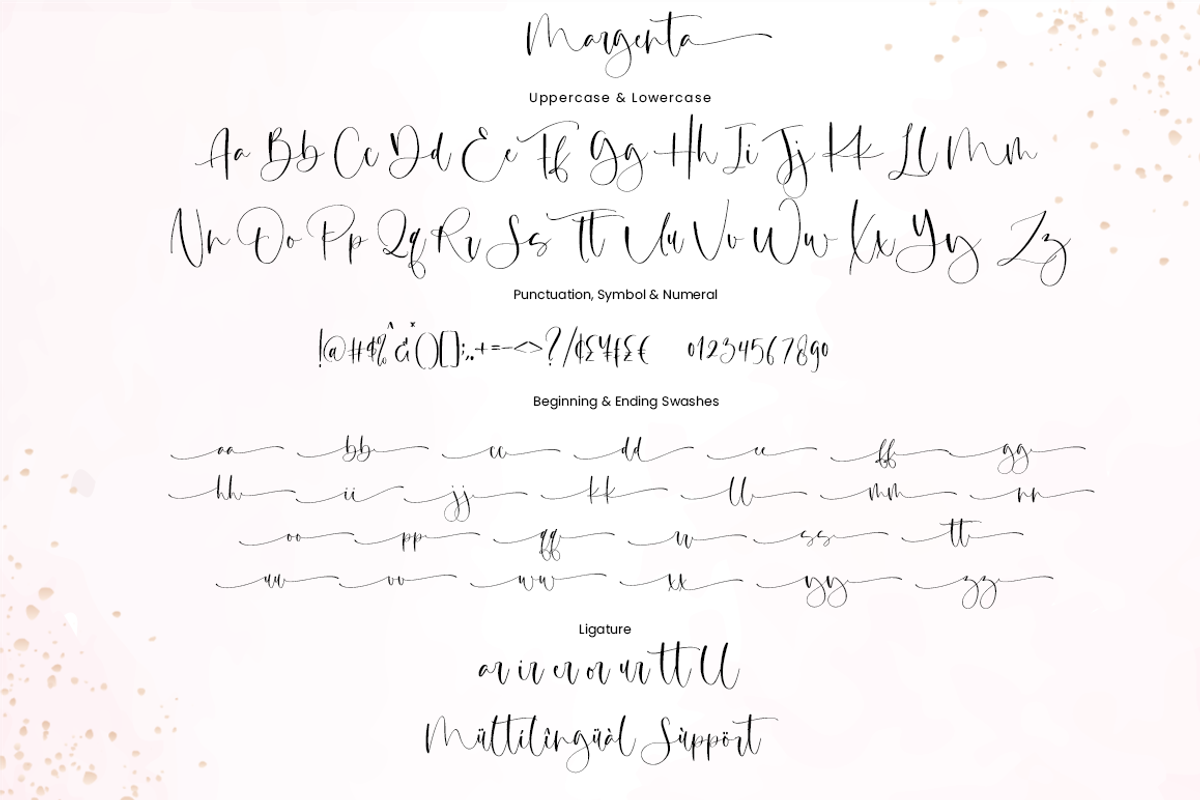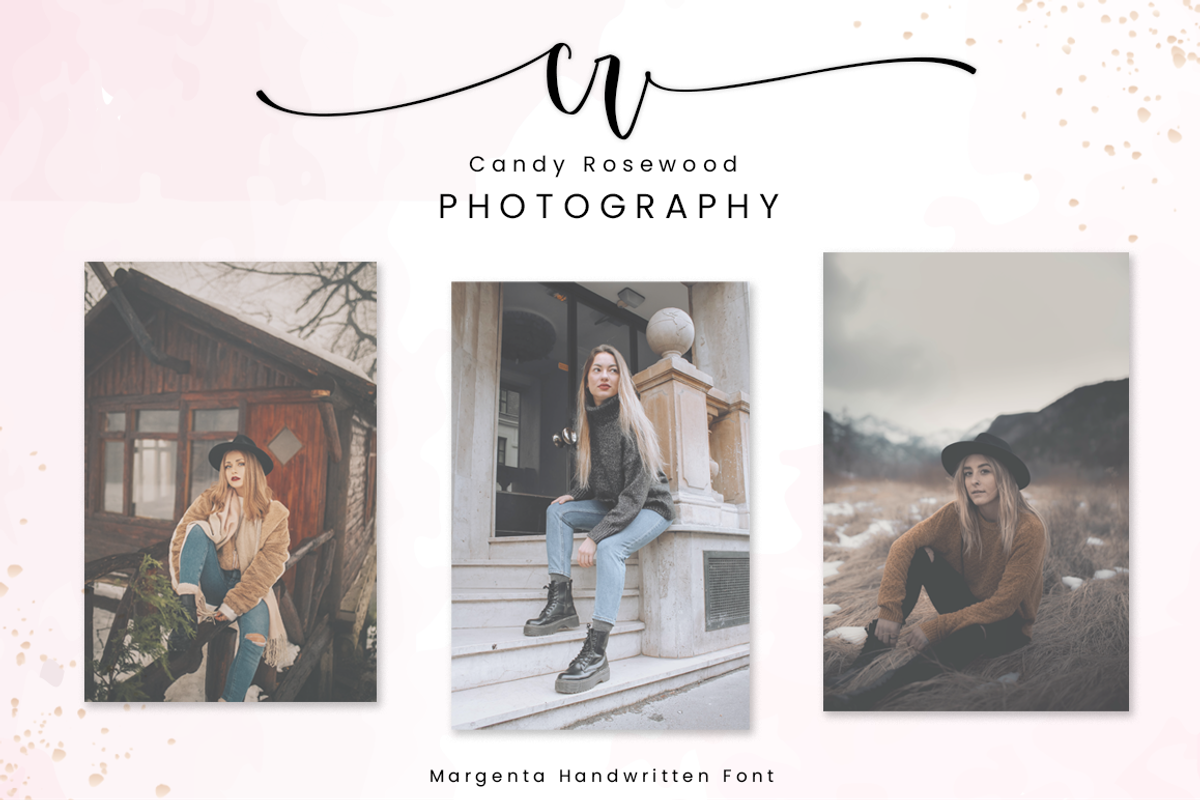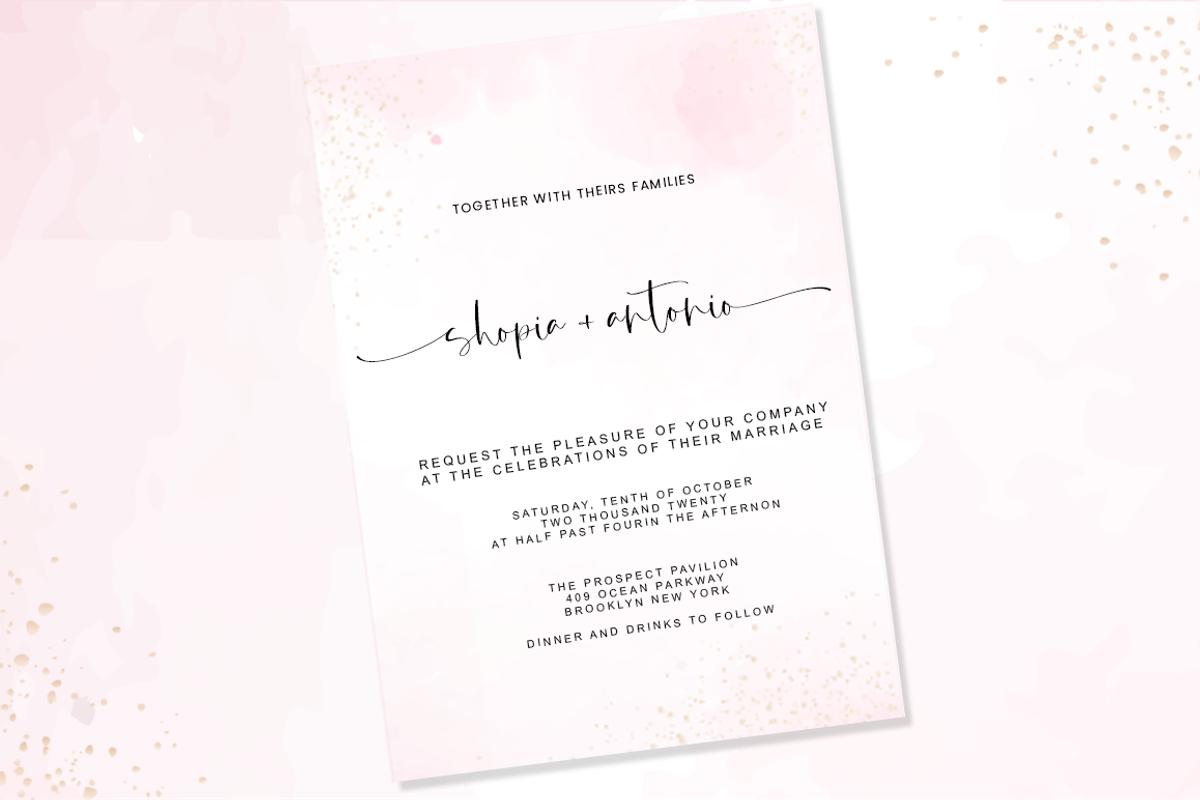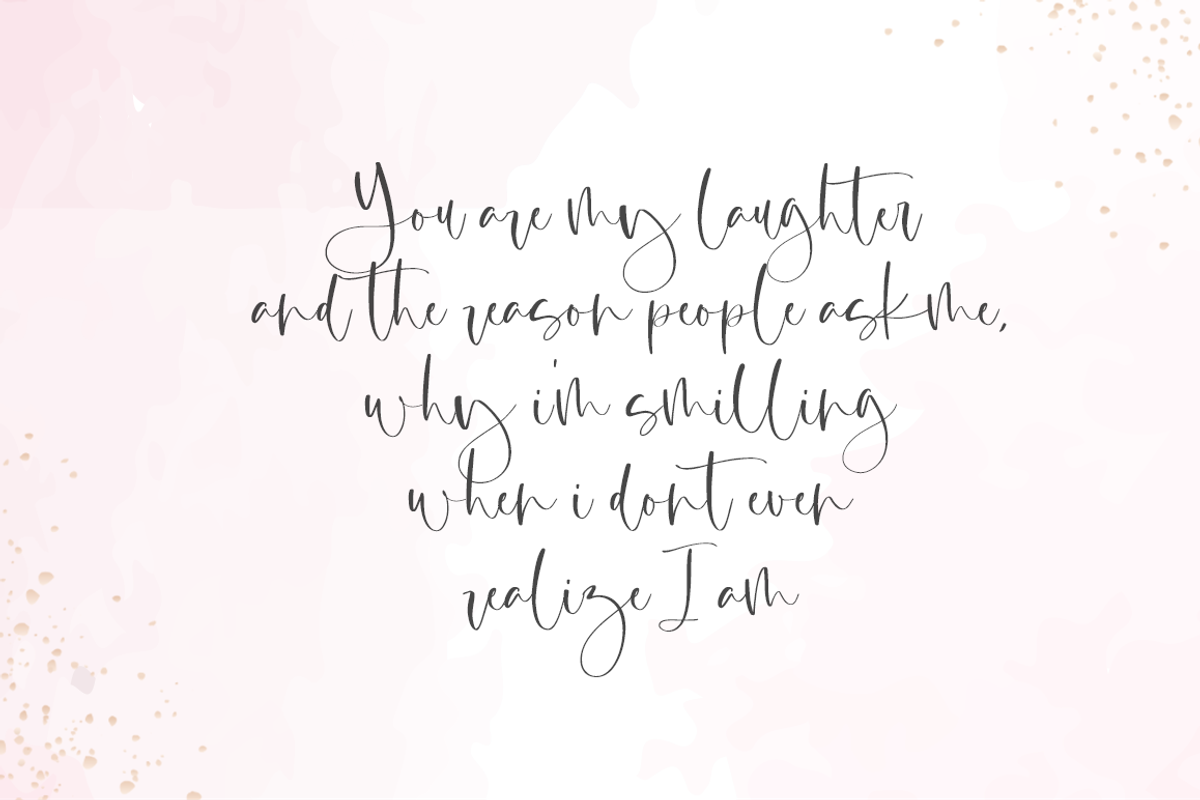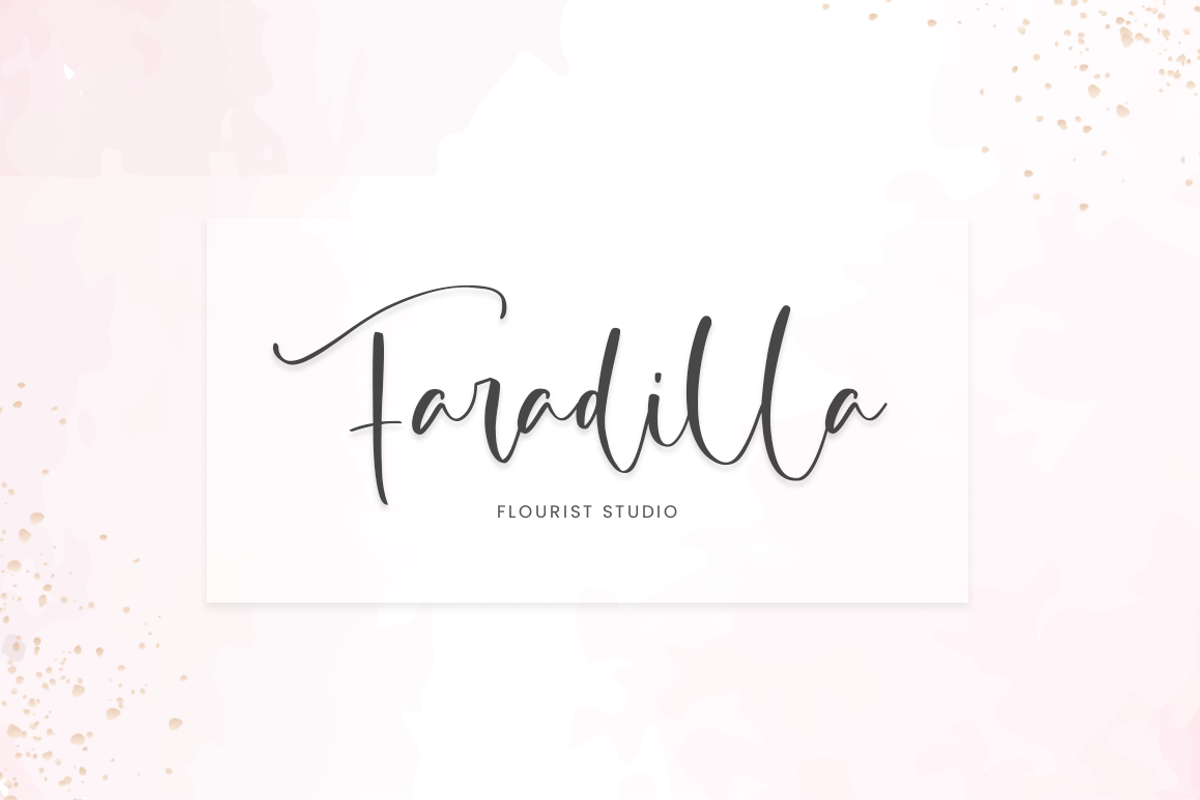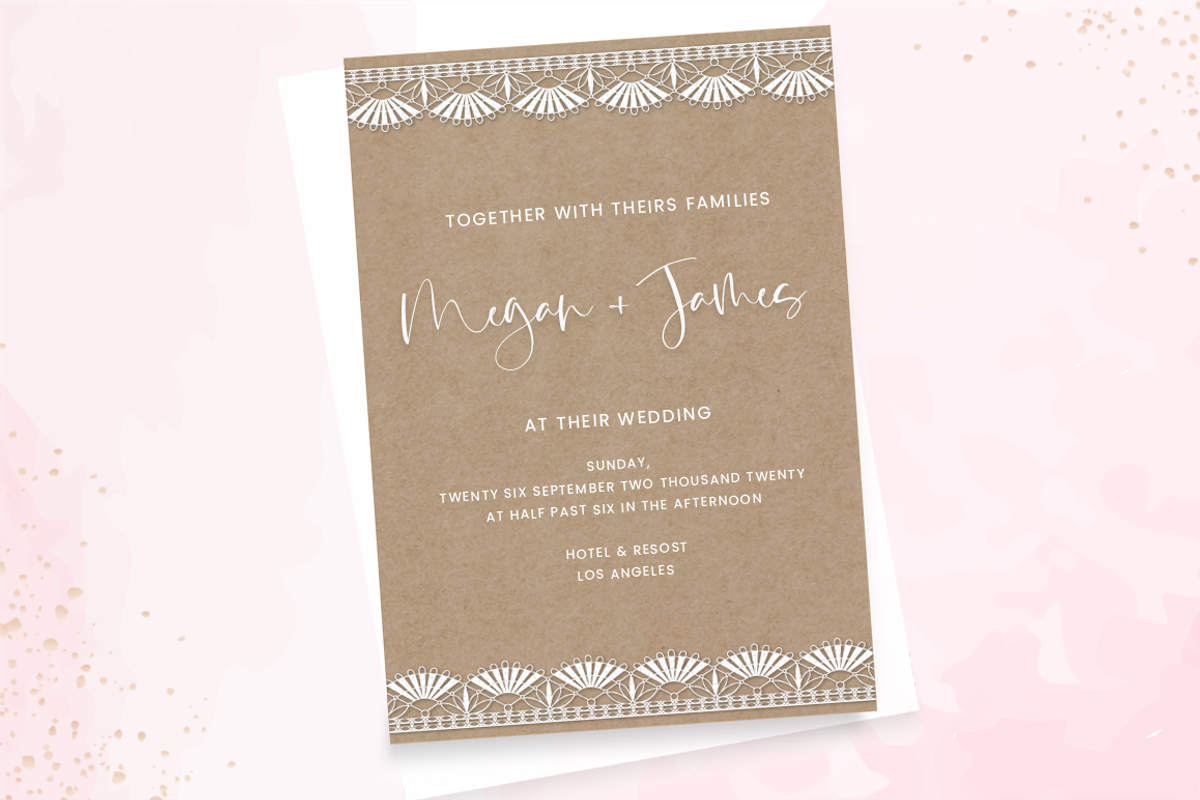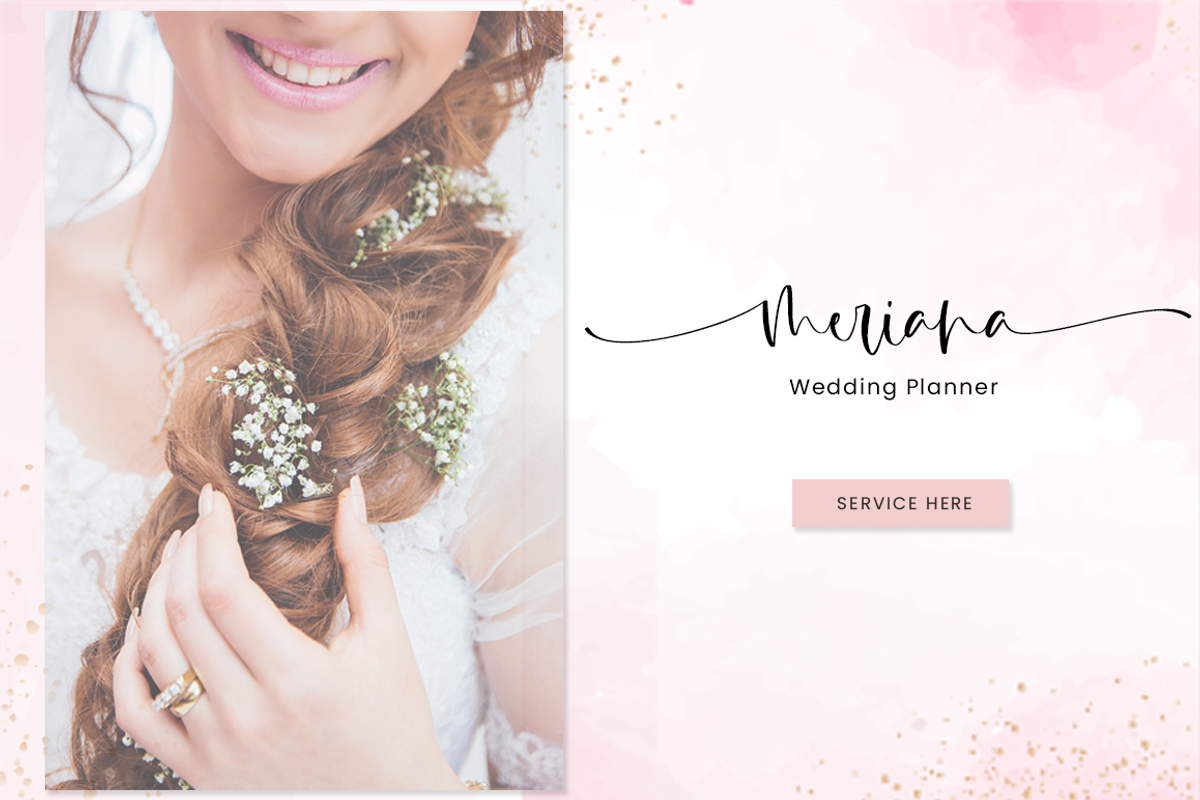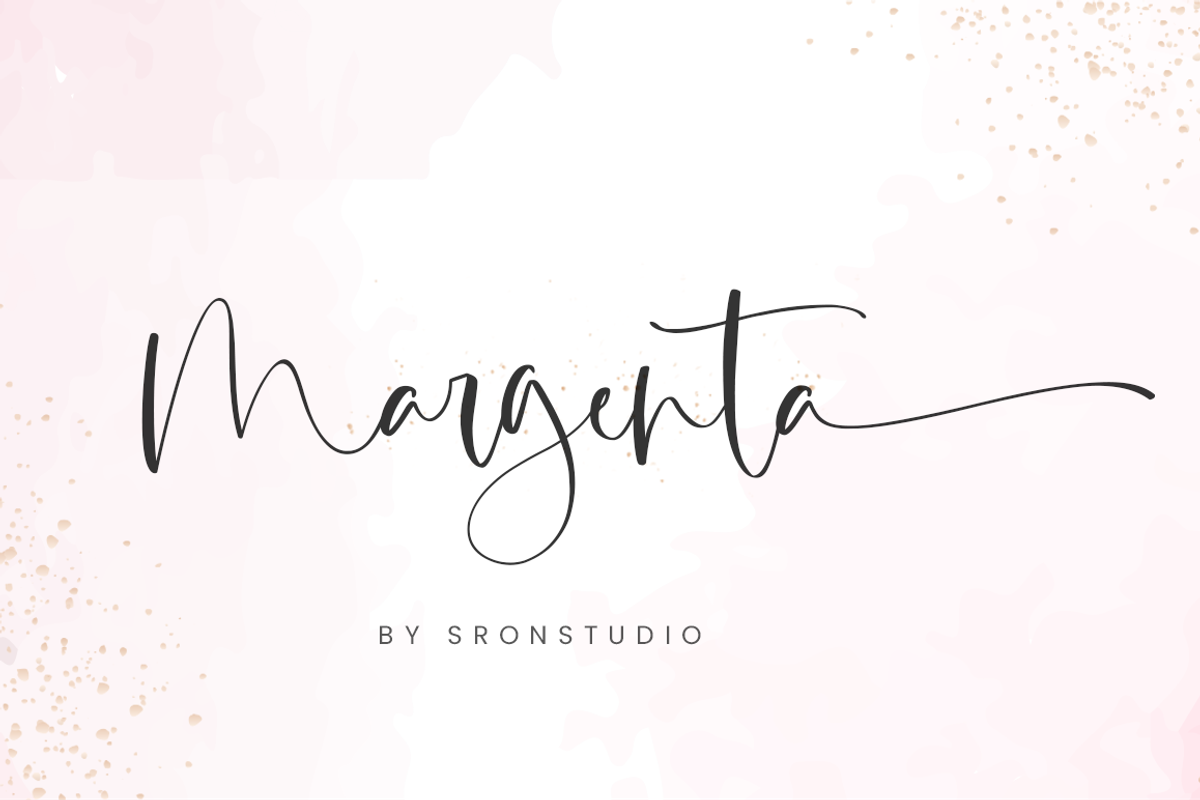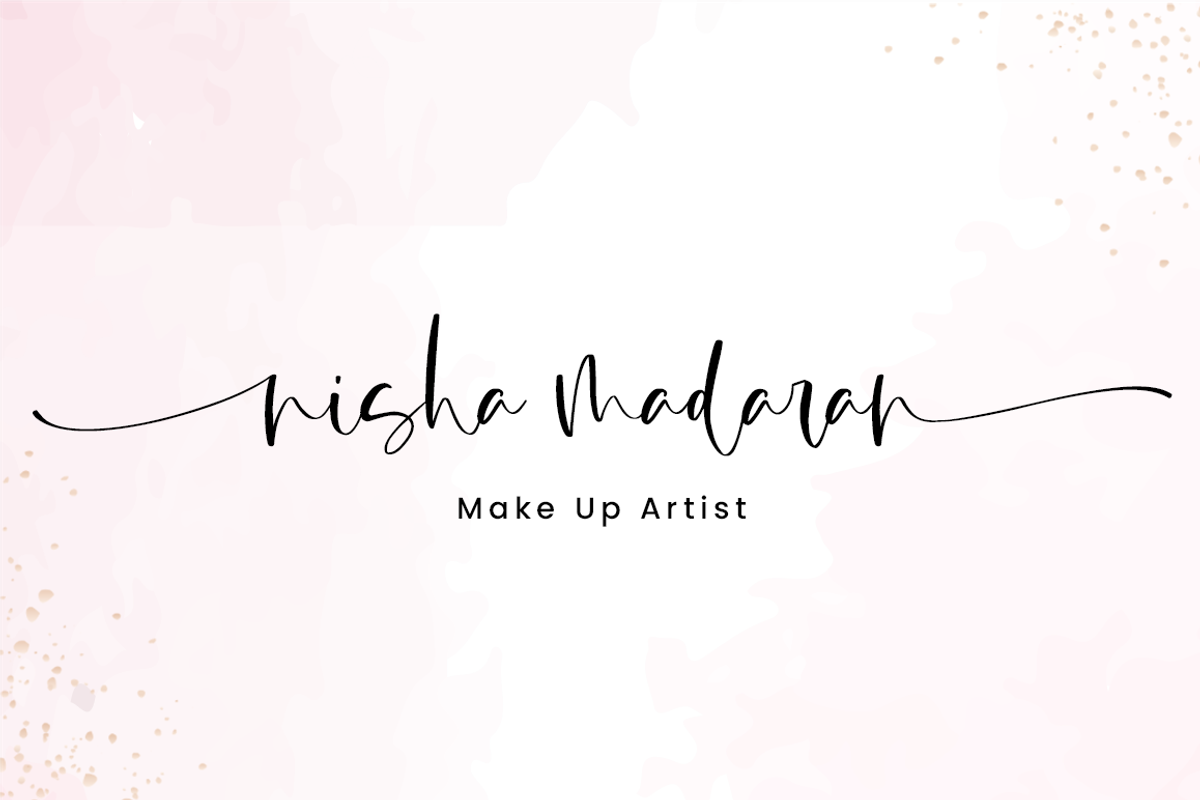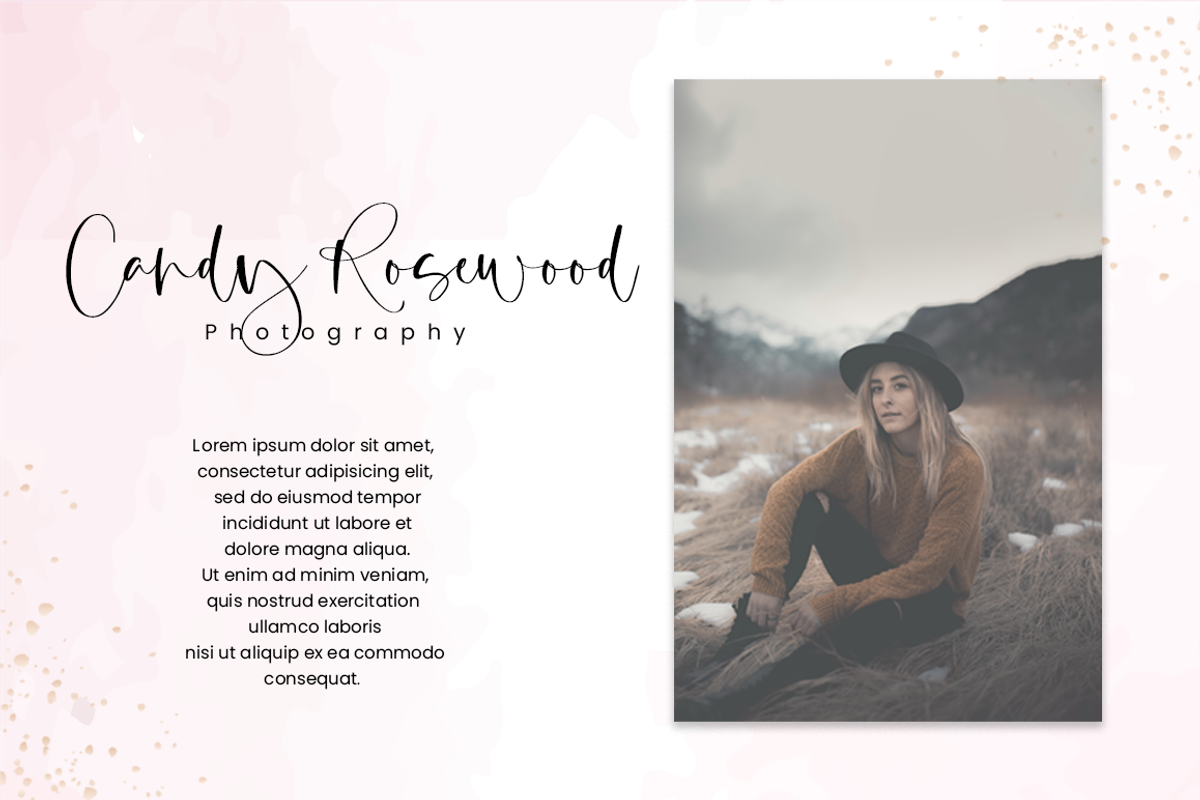
Margenta // Sweet Calligraphy
Margenta is a beautiful calligraphy font perfect for crafting, branding, invitation, stationery, wedding designs, social media posts, advertisements, product packaging, product designs, label, photography, watermark, special events, or anything.
Margenta comes with a full set of uppercase and lowercase letters, swash alternates, ligatures, multilingual symbols, numerals, and punctuation.